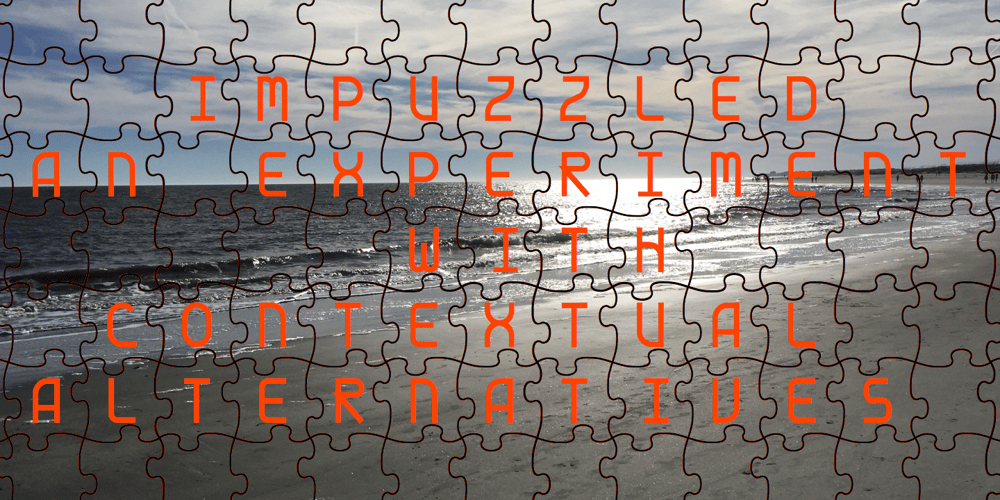
IMPuzzled
IMPuzzled font
IMPuzzled Font Family was designed by Robert Schenk and published by Ingrimayne Type. IMPuzzled contains 2 styles and family package options. IMPuzzled uses the OpenType feature of Contextual Alternatives to alternate two sets of characters. The sets are on two puzzle pieces that tessellate, that is, fit together to fill the plane with no gaps or overlaps. Empty pieces are on the brace keys and can be used to fill spaces. The black or solid style is designed to be used in a layer under the regular style, though it can be used alone if adjacent pieces are given different colors. This unusual font has limited uses but may be appropriate when the topic is related to the broad areas of puzzles, puzzled, and fitting pieces together.